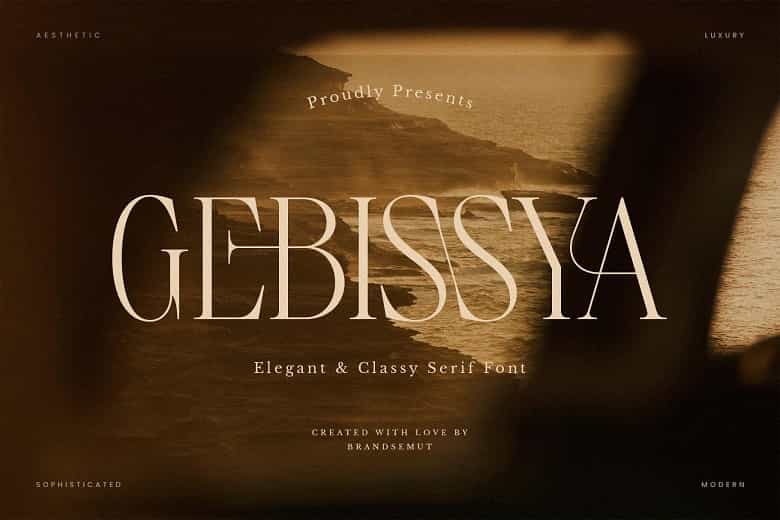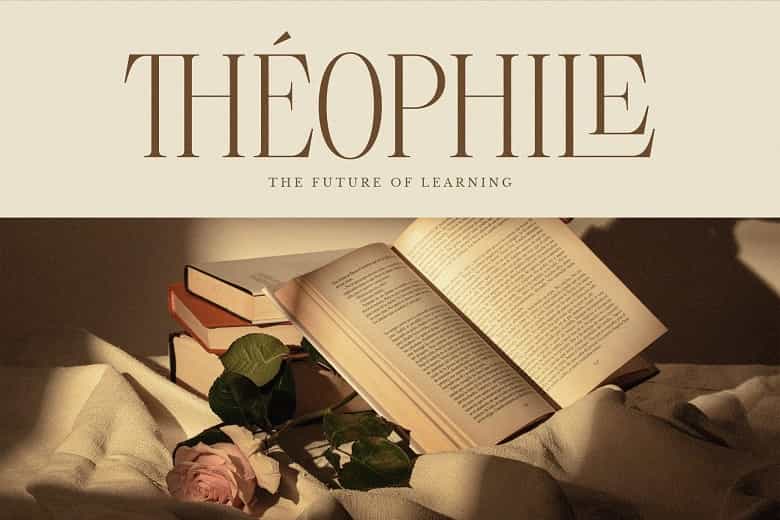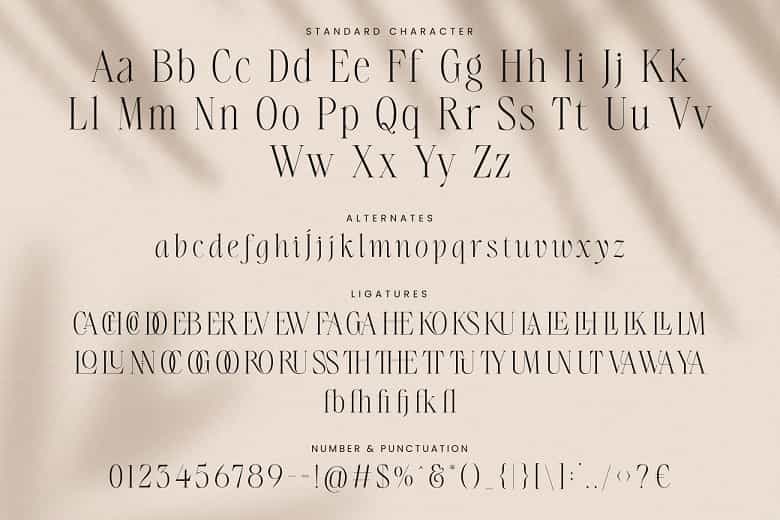
Gebissya is a refined, sophisticated and contemporary serif typeface that is suitable for use as titles, logos, brands, magazines, packaging products, and invitations. Gebissya with Ligature and many Alternates are clean lined and have smooth curves making any project look more professional.